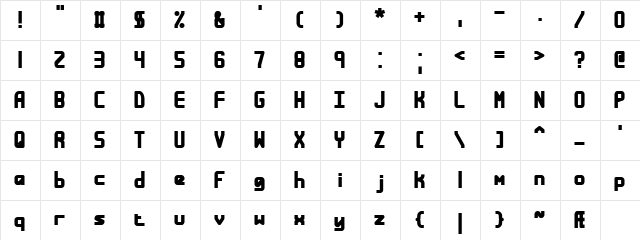
Bandwidth Bandless (BRK) Regular
Design Context for Bandwidth Bandless (BRK) Typeface
Bandwidth Bandless (BRK) offers clean, dependable letterforms without strong stylistic allegiance, making it a practical choice for designers who need flexibility.
Pro Tip: Use Bandwidth Bandless (BRK) in both headline and body roles to test its range before committing to a single application.